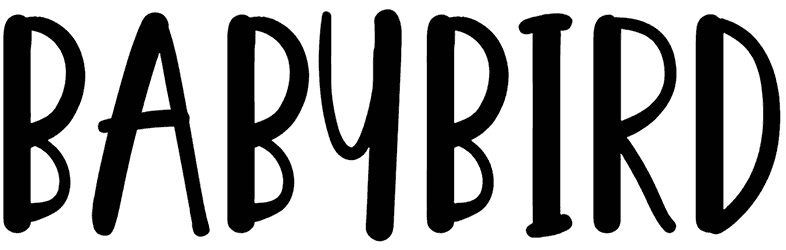
Babybird Font
Motivated by a lifelike sense, and love script fonts? Find the amazing best of them in this latest exhibition offered by RB! Babybird, with cartoonish characters, is one of those options that not everyone reaches.
This all-caps baby font holds a cohesively funny essence and slightly slanted letters, sometimes happy and cozy. Cartoons, animations, TV programs, storybook covers, vision games, and greeting cards are considerable places for embedding. Let it run; definitely, it will be applauded for its sweet tune.